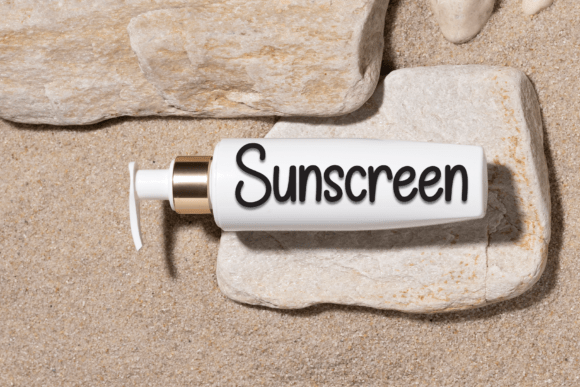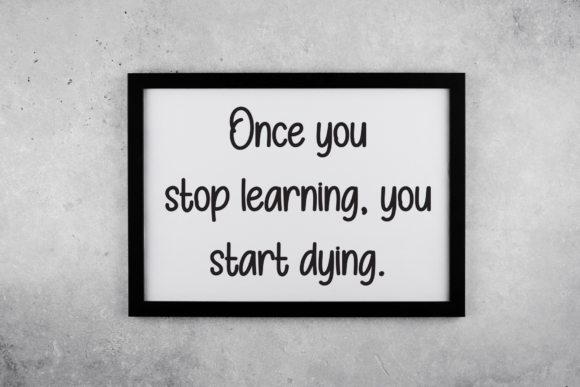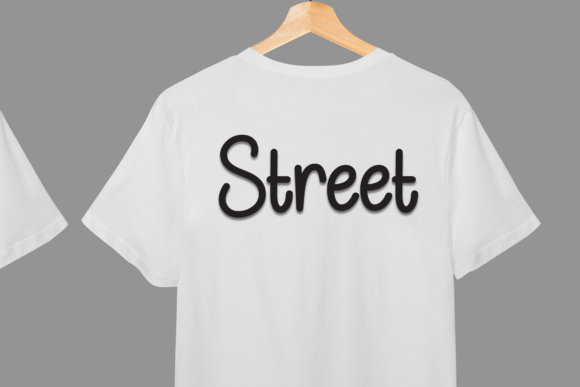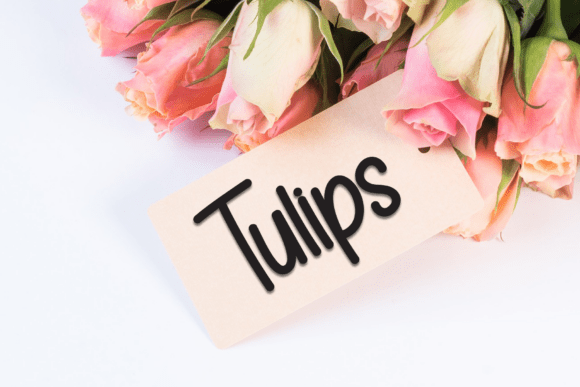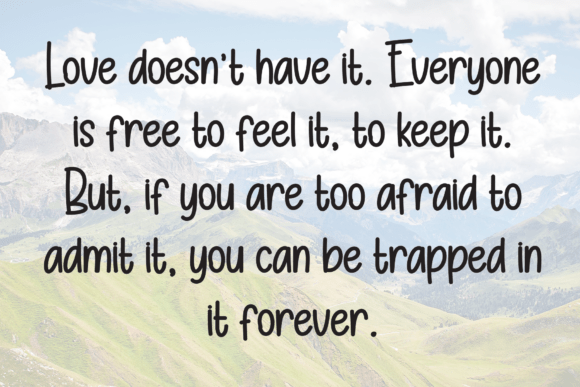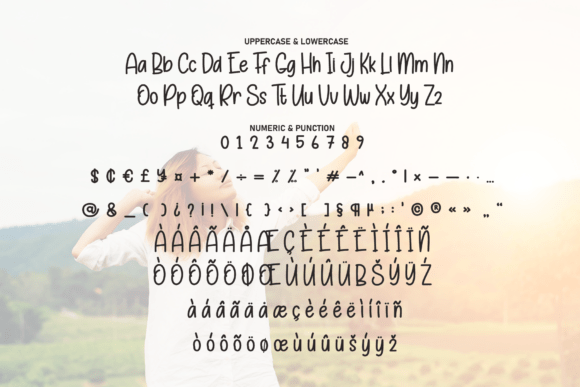
Introducing Happy Sunshine Font: The Perfect Blend of Warmth and Clarity
Are you tired of using fonts that are too formal or too dull for your design projects? Look no further than Happy Sunshine Font, a casual and neat display font that’s designed to bring warmth and clarity to your creations. With its clean structure and approachable style, Happy Sunshine Font is perfect for branding, headlines, and everyday designs that need a touch of personality.
The Characteristics of Happy Sunshine Font
So, what makes Happy Sunshine Font so special? For starters, its balanced letterforms offer exceptional readability and charm, making every message feel genuine and inviting. The font’s clean structure and approachable style ensure that it’s easy on the eyes, while its casual vibe adds a touch of warmth and friendliness to any design.
Whether you’re working on a branding project, creating headlines for a blog post, or designing everyday materials like flyers or brochures, Happy Sunshine Font is the perfect choice. Its versatility and legibility make it suitable for a wide range of applications, from digital designs to print materials.
The Benefits of Using Happy Sunshine Font
So, why should you choose Happy Sunshine Font for your design projects? Here are just a few benefits of using this amazing font:
- Improved Readability: Happy Sunshine Font is designed to be easy to read, even at small sizes. Its balanced letterforms and clean structure ensure that your message gets across clearly and effectively.
- Enhanced Charm: With its casual and approachable style, Happy Sunshine Font adds a touch of personality to any design. It’s perfect for brands that want to come across as friendly and inviting.
- Versatility: Happy Sunshine Font is suitable for a wide range of applications, from digital designs to print materials. You can use it for branding, headlines, and everyday designs with ease.
How to Use Happy Sunshine Font in Your Design Projects
Using Happy Sunshine Font in your design projects is easy. Here are a few tips to get you started:
- Choose the Right Size: Happy Sunshine Font is designed to be legible at a range of sizes. Experiment with different sizes to find the one that works best for your design.
- Pair it with Other Fonts: Happy Sunshine Font pairs well with a range of other fonts. Try pairing it with a sans-serif font for a modern look or a serif font for a more traditional feel.
- Experiment with Colors: Happy Sunshine Font looks great in a range of colors. Try experimenting with different colors to find the one that works best for your brand.
- Use it for Headlines and Titles: Happy Sunshine Font is perfect for headlines and titles. Use it to add a touch of personality to your design and draw attention to your message.
Who is Happy Sunshine Font for?
Happy Sunshine Font is perfect for designers, crafters, and businesses who want to add a touch of warmth and personality to their design projects. Whether you’re working on a branding project, creating headlines for a blog post, or designing everyday materials, Happy Sunshine Font is a great choice.
Some examples of designers and businesses who may benefit from using Happy Sunshine Font include:
- Graphic Designers: Happy Sunshine Font is perfect for graphic designers who want to add a touch of personality to their designs.
- Crafters: Happy Sunshine Font is great for crafters who want to create handmade materials with a personal touch.
- Small Businesses: Happy Sunshine Font is perfect for small businesses who want to create a friendly and inviting brand image.
- Bloggers: Happy Sunshine Font is great for bloggers who want to add a touch of personality to their headlines and titles.
In conclusion, Happy Sunshine Font is a casual and neat display font that’s designed to bring warmth and clarity to your design projects. With its clean structure and approachable style, it’s perfect for branding, headlines, and everyday designs. Its balanced letterforms offer exceptional readability and charm, making every message feel genuine and inviting.
Whether you’re a designer, crafter, or business owner, Happy Sunshine Font is a great choice for your design projects. So why not give it a try and see the difference it can make?